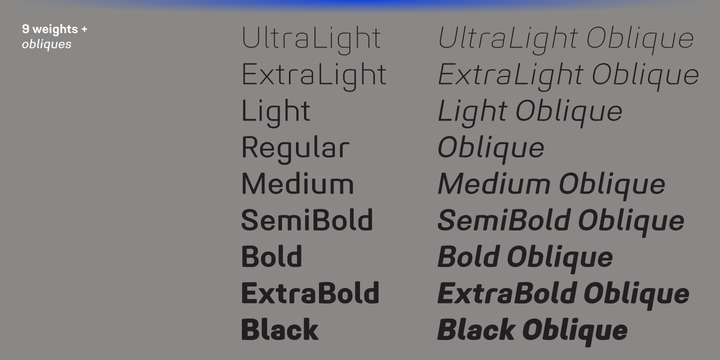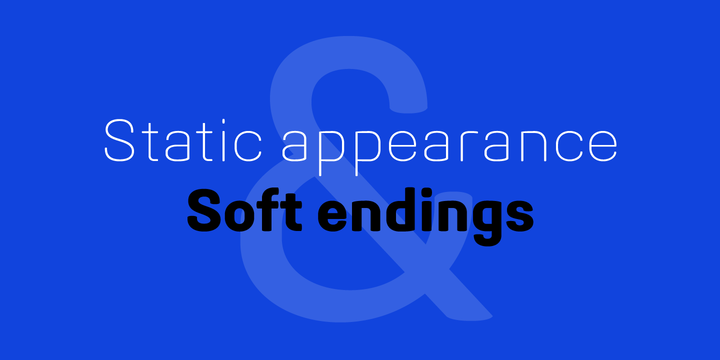
Midpoint Pro Font Family
Introducing the new font family. Midpoint Pro Font Family designed by Mint Type. Midpoint Pro is a soft sans-serif typeface with a modern technical look. Its spurless design creates a perfect balance between static rigid verticals and softened endings. The interplay of open and closed forms suggests increased legibility in small sizes and results in a vivid texture.